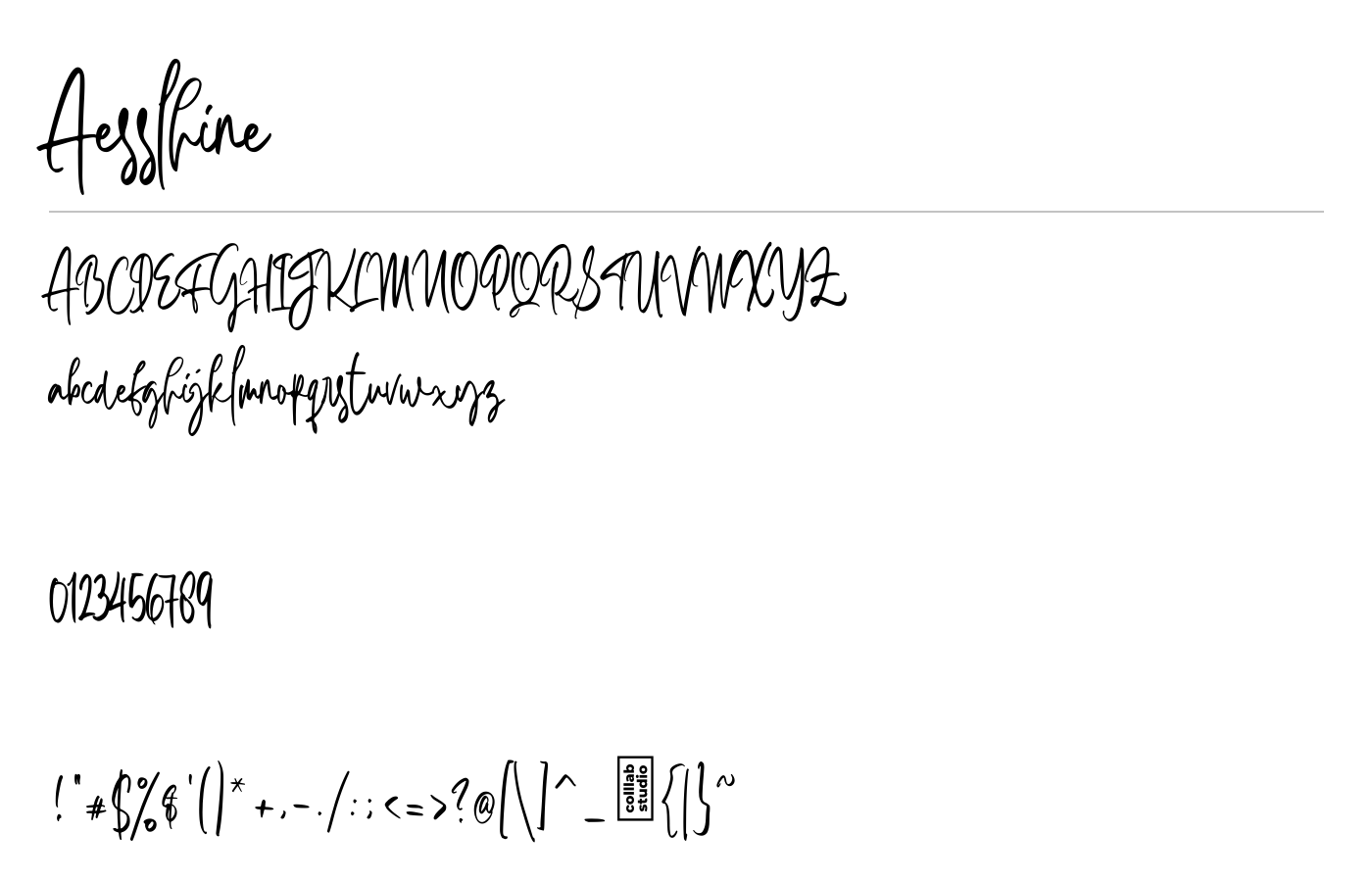
Aesslhine is a slender, casual script font with a lively, handwritten feel. Its tall, narrow letterforms and smooth, flowing strokes create an elegant yet approachable style, perfect for adding a personal touch to branding, invitations, and creative projects. This font works well in designs that seek a blend of sophistication and warmth.
Aesslhine Font